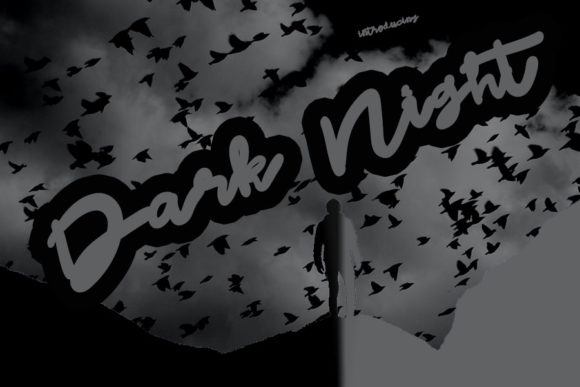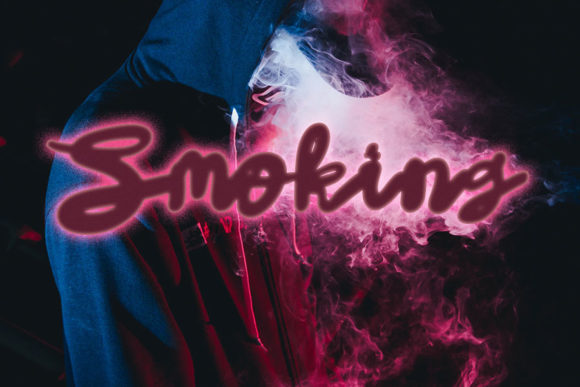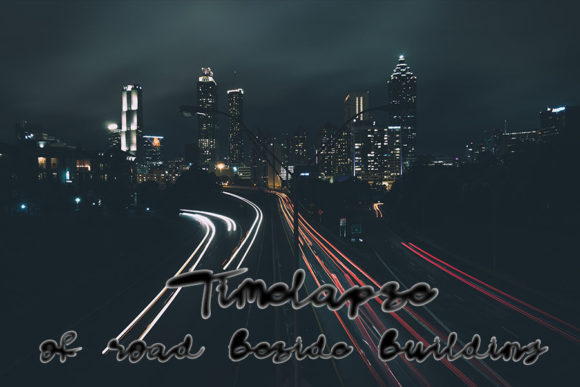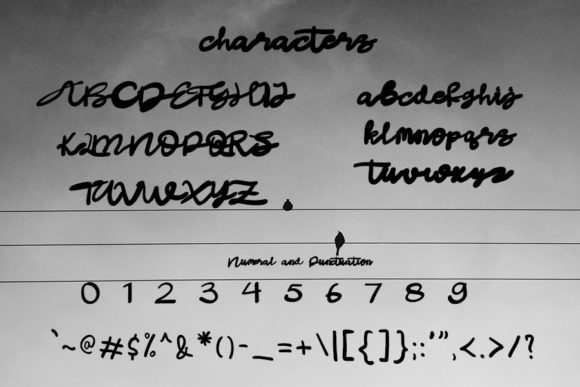
About Dark Night Font
Dark Night is a trendy and flowing handwritten font. Masterfully designed to become a true favorite, this font has the potential to bring each of your creative ideas to the highest level!